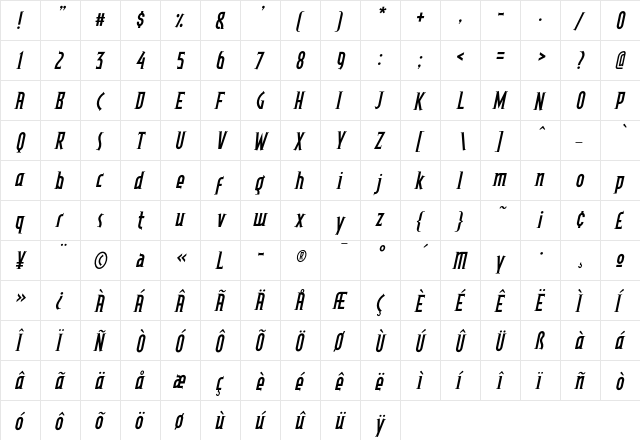
Konfactur-Two Regular Font Preview
Konfactur-Two Regular
Design Context for Konfactur-Two Typeface
Konfactur-Two takes a measured approach to typography — its balanced proportions and neutral character make it a reliable workhorse for both digital and print work.
Pro Tip: Use Konfactur-Two in both headline and body roles to test its range before committing to a single application.